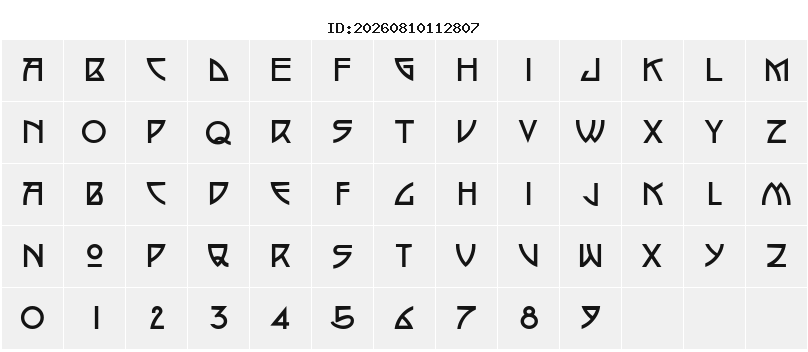
• Designer: Dard Hunter / Richard Kegler
• Manufacturer: P22 type foundry
• Description: This font is derived from early 20th century books and periodicals primarily designed by Dard Hunter during his tenure at the Roycroft.
P22 Arts And Crafts.ttf is a modern, elegant sans-serif font designed for ultimate readability and visual harmony. Perfect for branding, headlines, web design, and print materials.